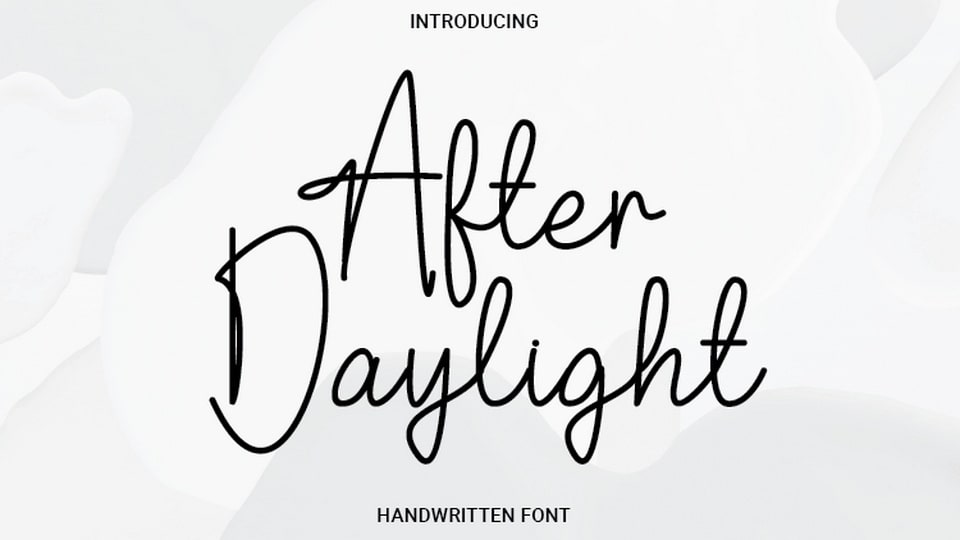
Download After Daylight font, a monoline script typeface that you can use for all chalkboard quotes or teaching material! The authentic look of After Daylight font will add a personal and realistic feel to your designs.
Designer: Rvandtype Studio